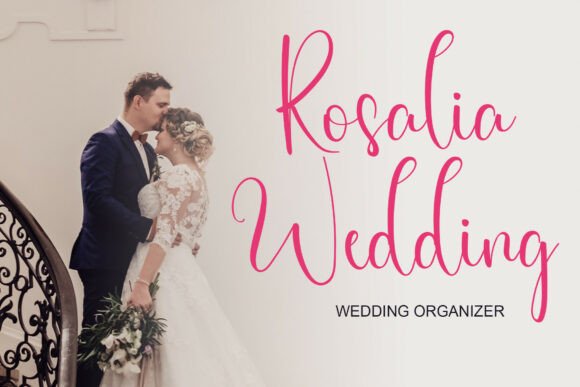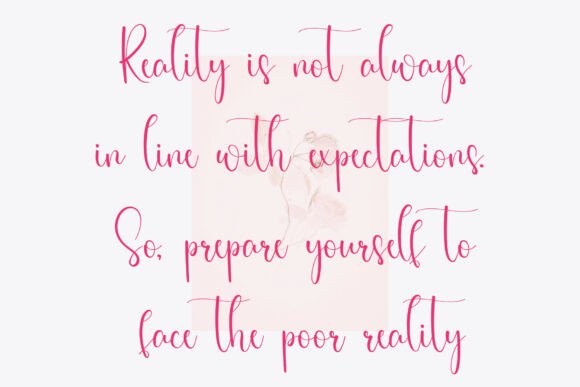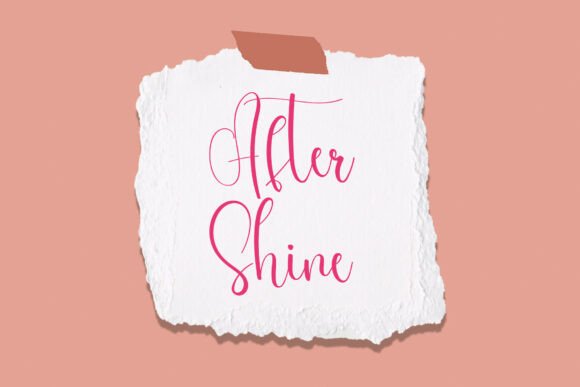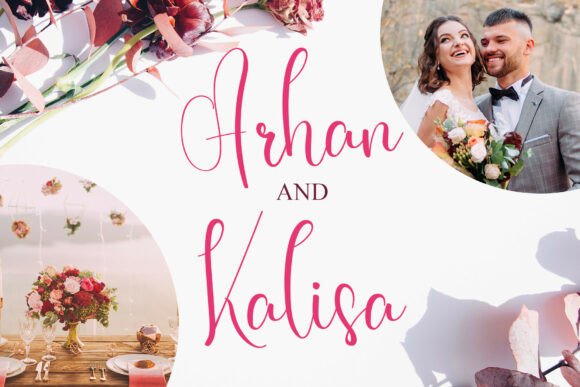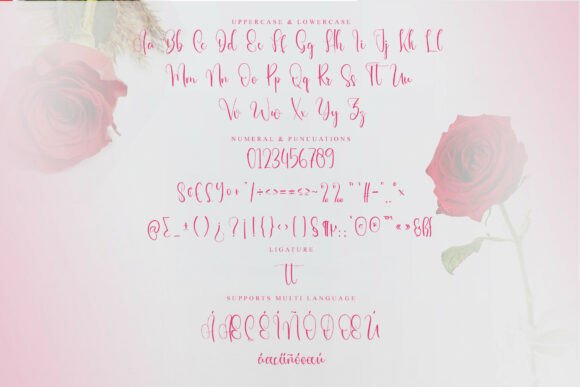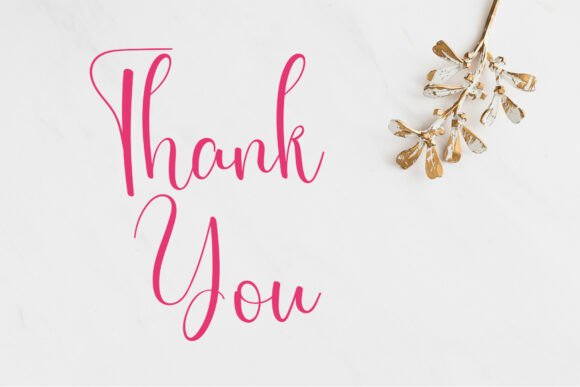
Introduction to Juliet Valentine Font Font
Fonts play a crucial role in design, and the Juliet Valentine Font font is a typeface that brings both character and versatility to any project. Whether you’re working on a branding project, a website, or a print design, the Juliet Valentine Font font offers a unique style that can elevate your work.
Juliet Valentine is a stylish and modern handwritten font, suitable for a wide spectrum of applications.
From greeting cards to headlines, branding and packaging, this font will guarantee a happiness touch to each of your creations .
Key Features of Juliet Valentine Font Font
Why Choose Juliet Valentine Font Font?
The Juliet Valentine Font font is more than just a typeface – it’s a design tool that helps you communicate your message with style and clarity. Its unique character set and versatile design make it suitable for a wide range of applications, from elegant invitations to bold headlines.
With its carefully crafted letterforms and balanced proportions, the Juliet Valentine Font font ensures readability and visual appeal across all mediums.
What makes Juliet Valentine Font font special?
The Juliet Valentine Font font stands out with its unique design, exceptional readability, and versatility across various design applications.